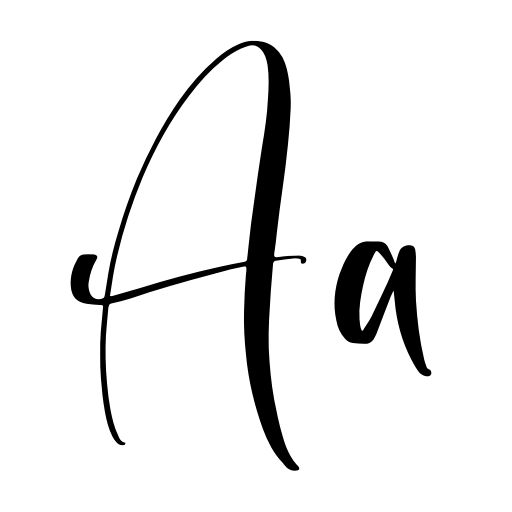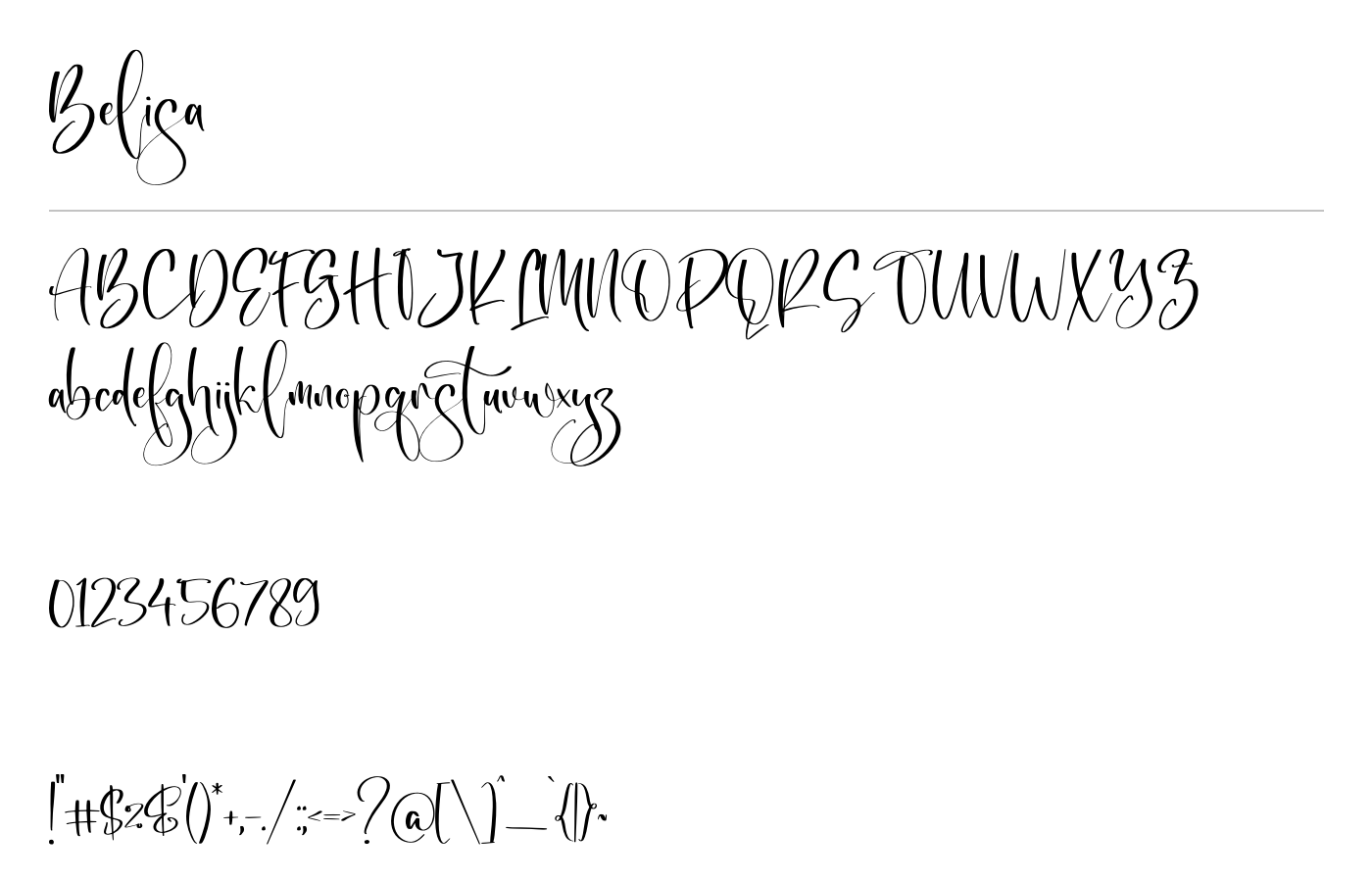
Belisa is an elegant, handwritten script font characterized by its delicate, flowing strokes and graceful swashes that give it a charming, artistic flair. With its tall, slender letterforms and moderate contrast between thick and thin lines, it conveys a sophisticated yet approachable style perfect for fashion branding, invitations, and creative headlines. This font works beautifully where a personal, stylish touch is desired, adding a sense of luxury and refined creativity.
Belisa Font
About Belisa Font
| Font family | Belisa Font |